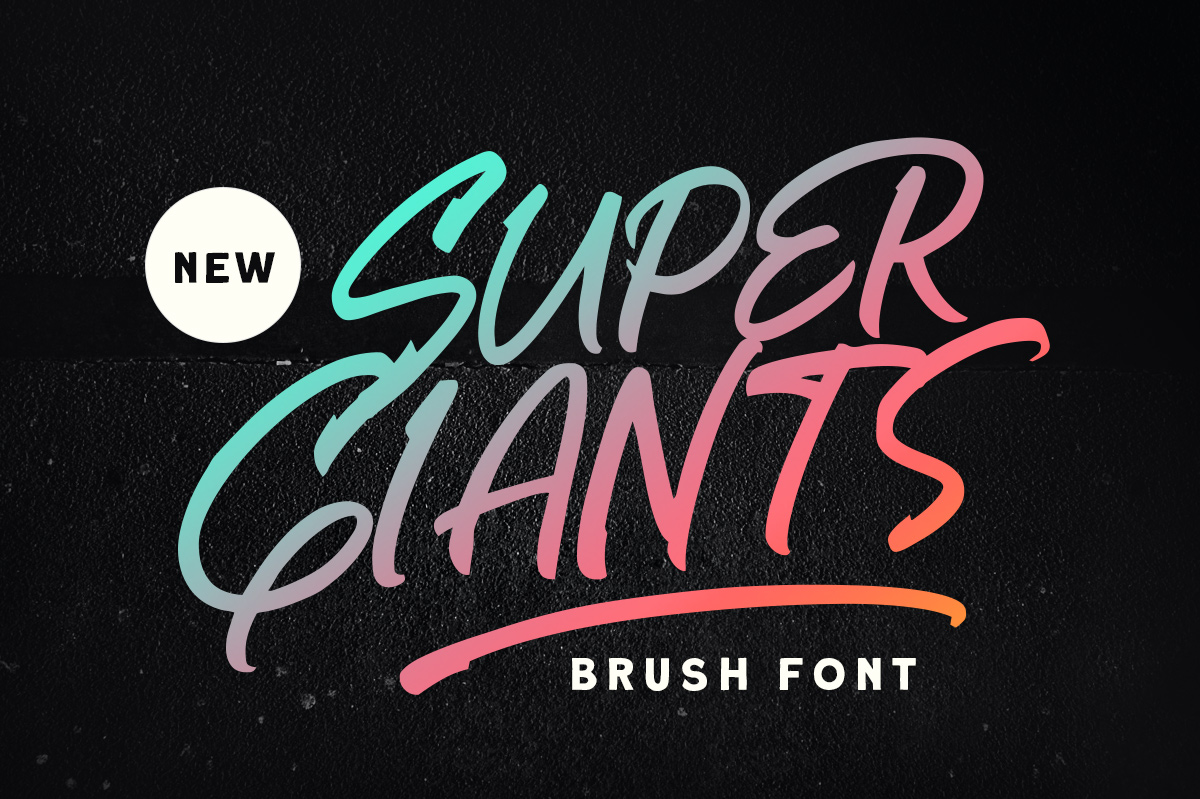
Super Giants Font
Super Giants Font is perfect for superhero comic book titles, action movie poster designs, powerful sports team branding, epic video game interfaces, dynamic action hero merchandise, colossal entertainment venues, mighty fitness center signage, thunderous music festival graphics, massive construction company logos, and enormous adventure park materials. This commanding typeface brings heroic strength to superhero convention promotions, powerful automotive advertising, gigantic theme park attractions, mighty equipment manufacturing, and colossal entertainment industry communications.
Super Giants Font is exciting because it embodies overwhelming power and heroic magnitude through its monumentally crafted letterforms that command immediate attention and respect. The font features massive, bold characters with superhero proportions and dynamic details that evoke the unstoppable force of comic book heroes, the earth-shaking impact of titans, and the awe-inspiring presence of legendary giants. Its distinctive construction demonstrates colossal strength with carefully engineered elements that create an immediate sense of immense power and heroic authority. The font's superhero presence and gigantic authenticity make it perfect for brands seeking to communicate overwhelming strength, heroic power, and legendary magnitude in their visual communications.
Super Giants Font family includes various powerful styles: Light, Regular, Bold, Black, Ultra Black, Italic, Condensed, Extended, Mighty, Colossal, Heroic, and Legendary variants. Each family member maintains the core giant DNA while offering different levels of power for diverse superhero-themed design applications. The comprehensive font collection ensures consistent heroic branding across action-packed campaigns, powerful entertainment products, and mighty communication materials.
Super Giants Font Free Download offers designers an exceptional opportunity to infuse their projects with authentic superhero power and colossal visual impact. This remarkable typeface seamlessly blends heroic aesthetics with contemporary functionality, making it ideal for both digital action platforms and premium superhero-themed print materials. The font's carefully crafted giant details and powerful presence create memorable visual experiences that resonate with audiences seeking heroic adventure, powerful entertainment, and legendary experiences.
Whether you're creating superhero brand identities, designing action-packed marketing materials, developing powerful website headers, or crafting heroic promotional campaigns, Super Giants Font delivers outstanding heroic appeal and colossal authenticity. The font's distinctive mighty personality excels in superhero logos, powerful packaging design, action applications, and entertainment projects where heroic strength and legendary magnitude are essential.